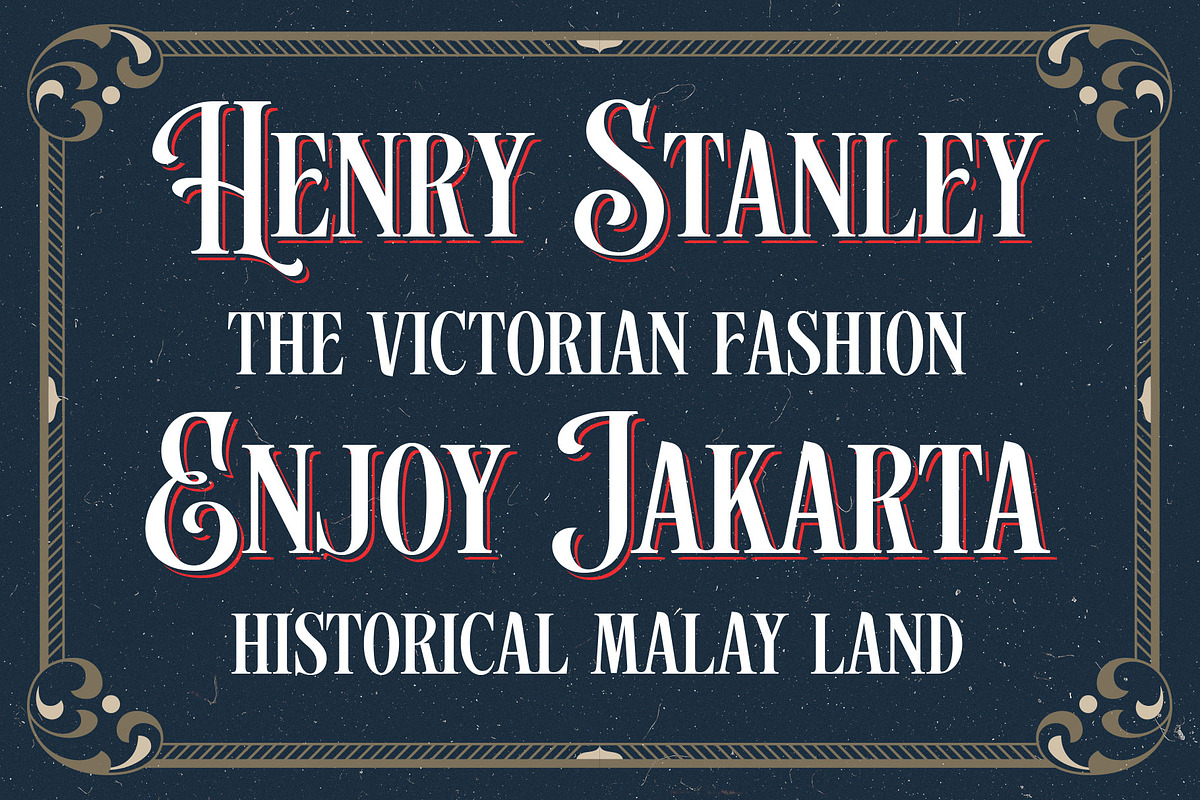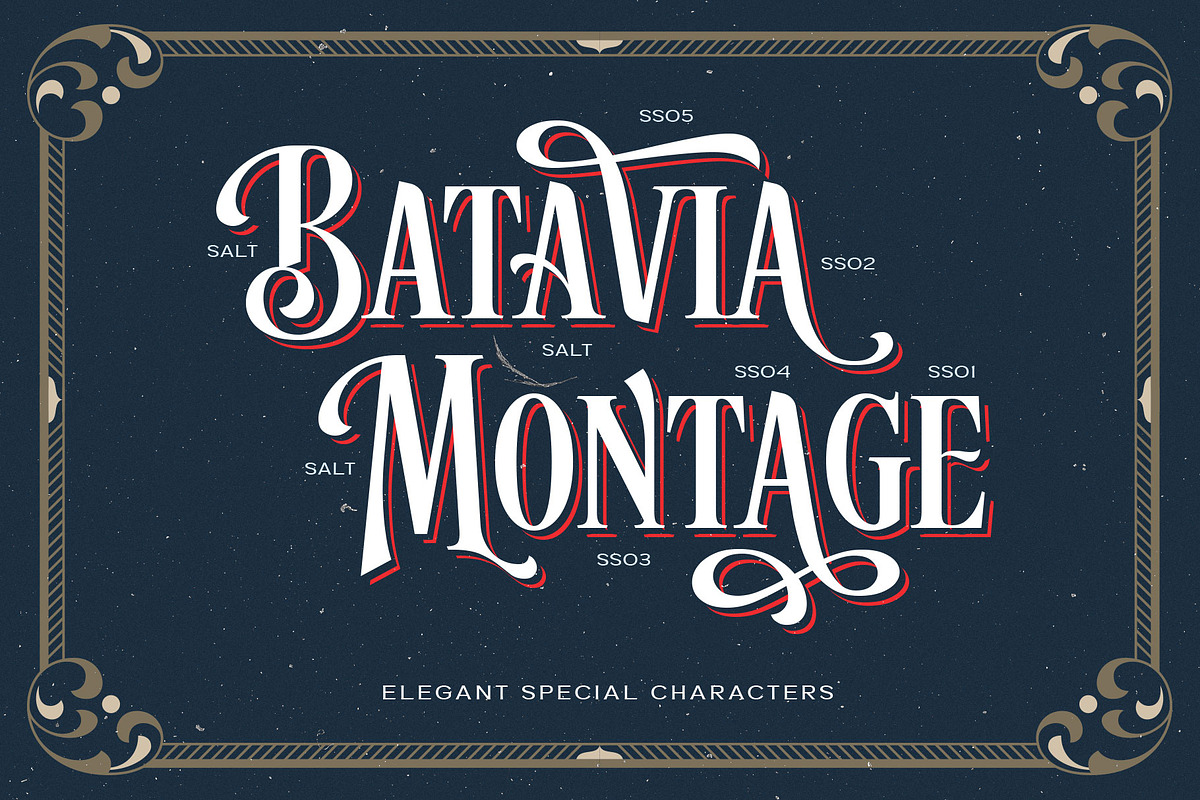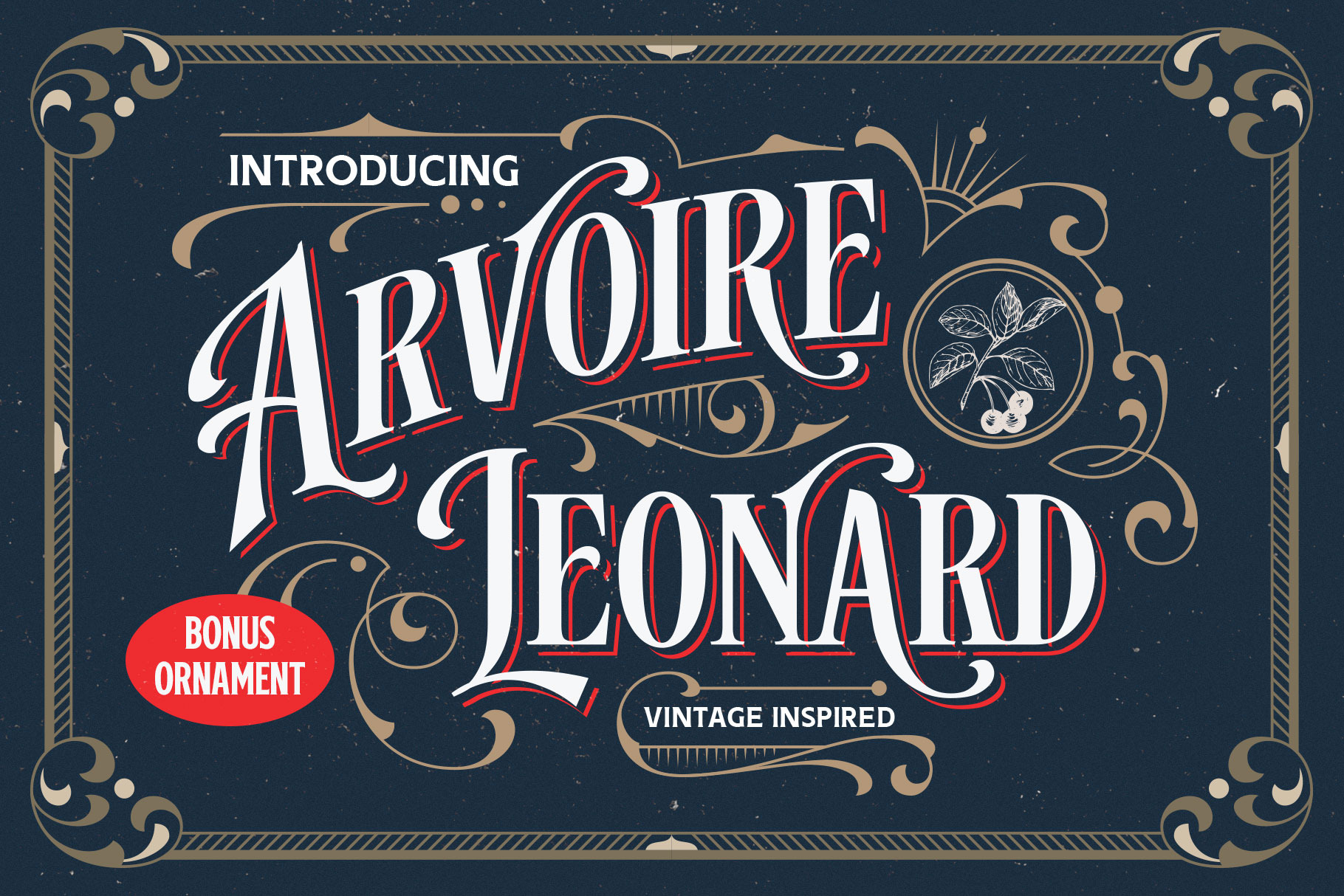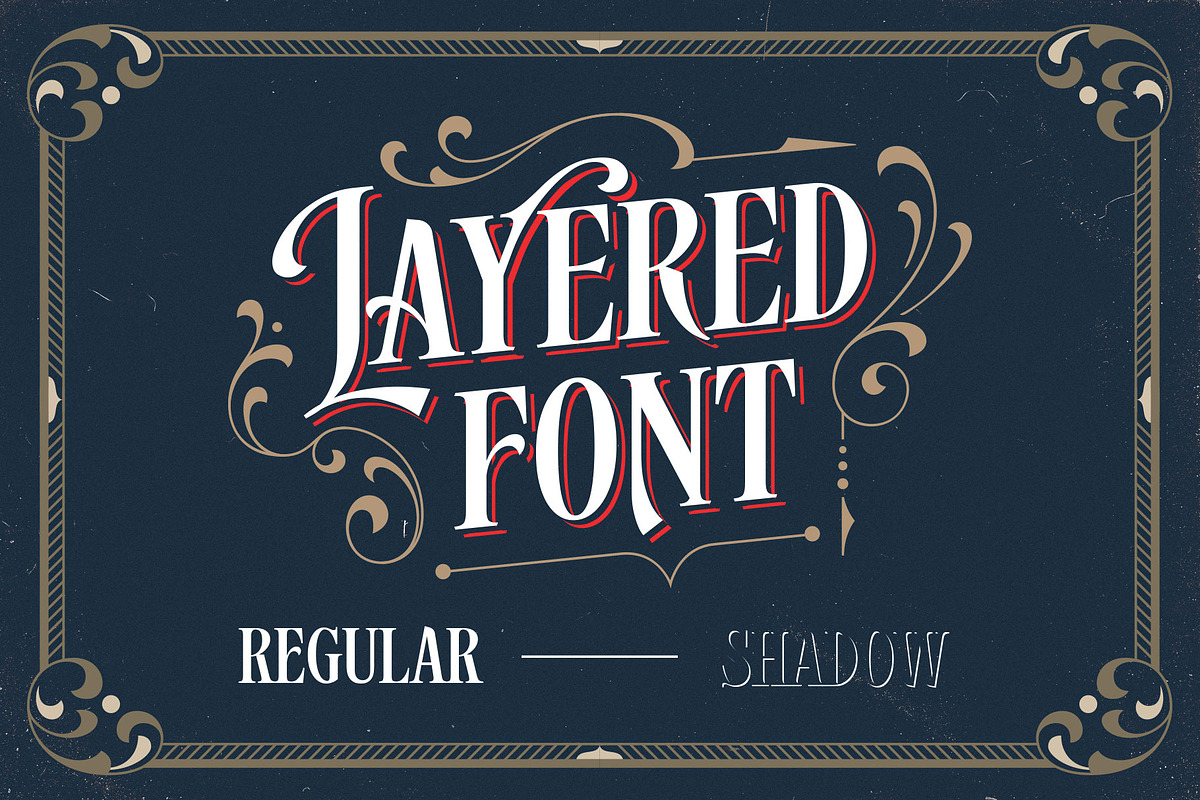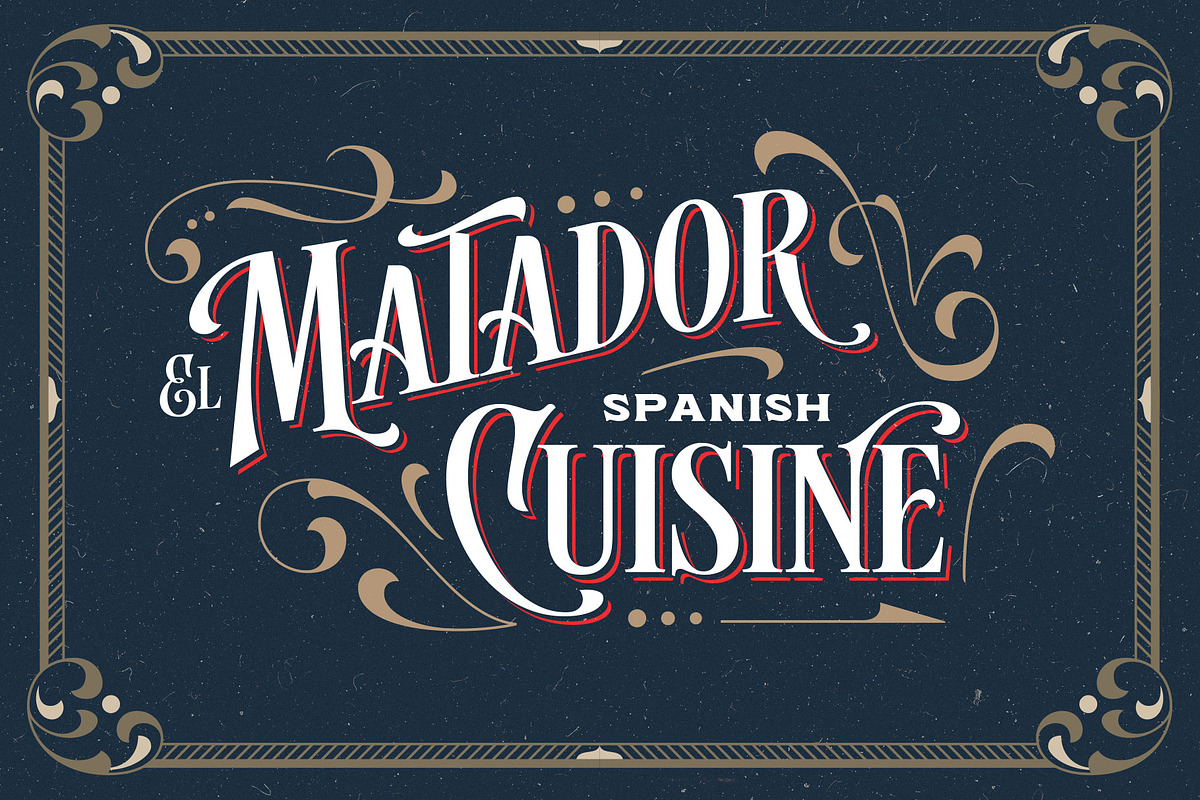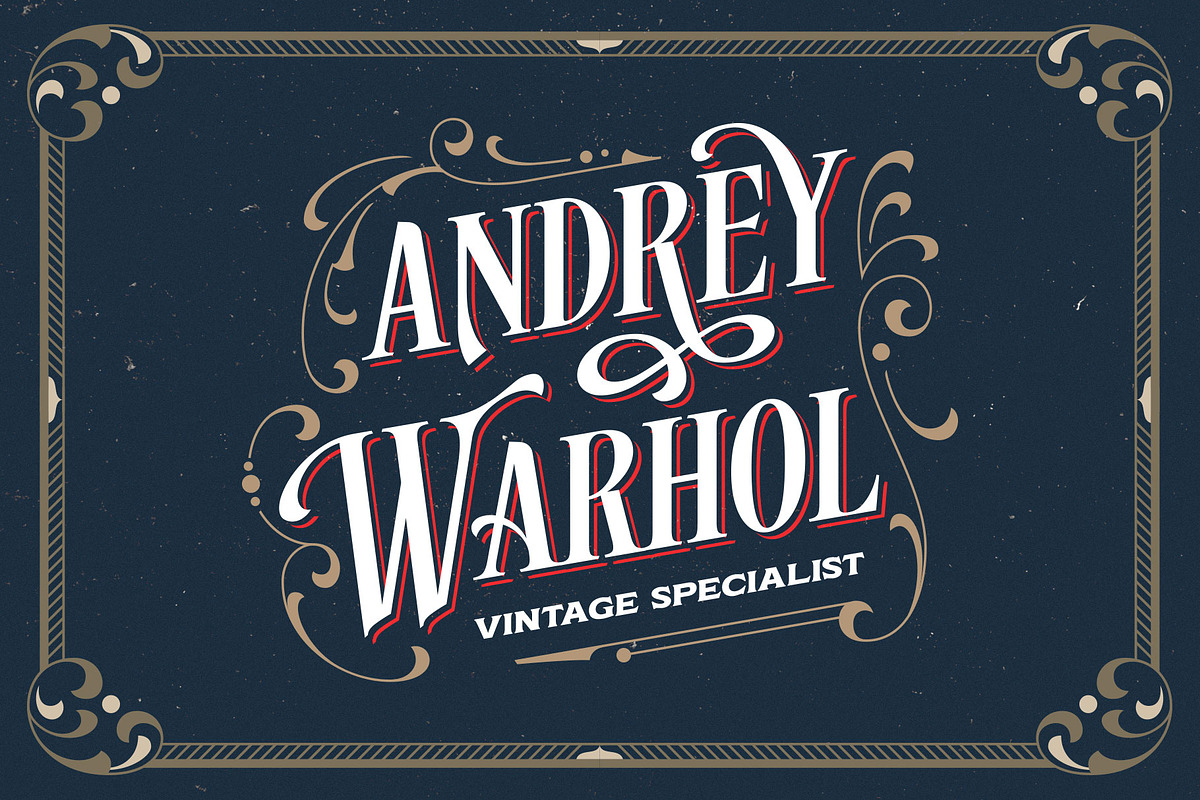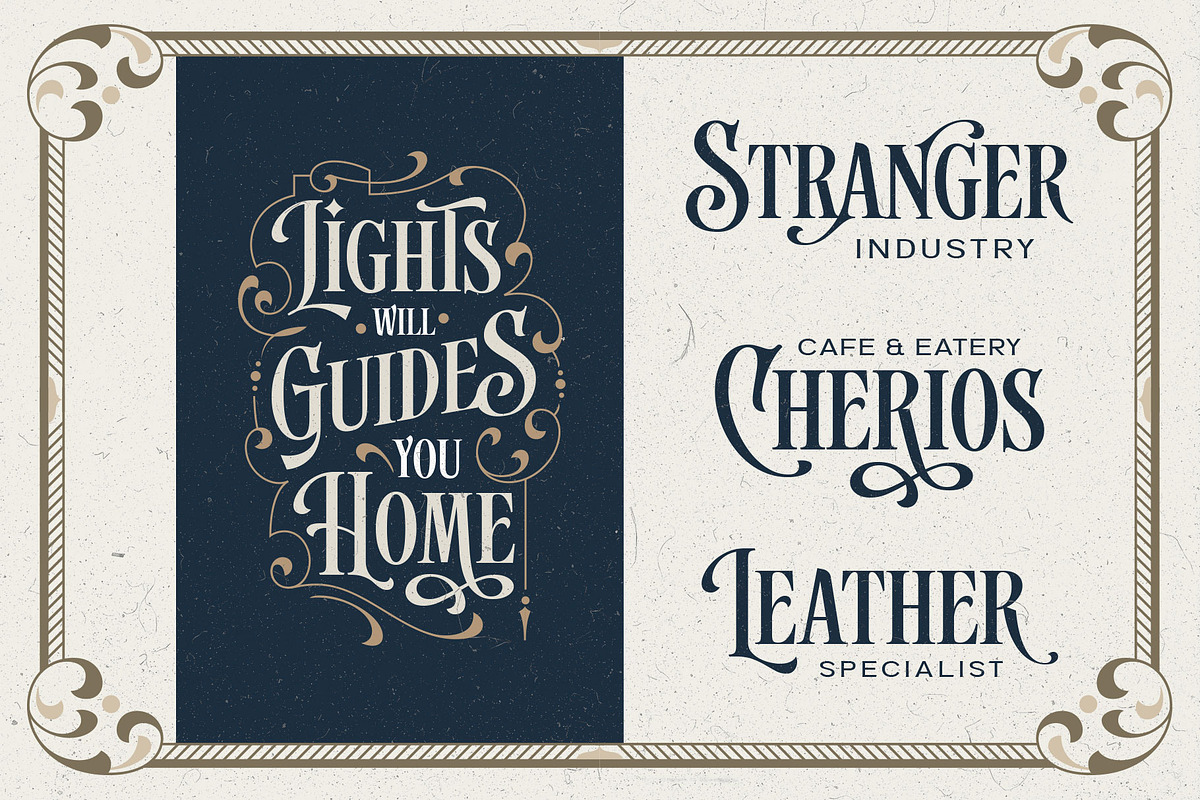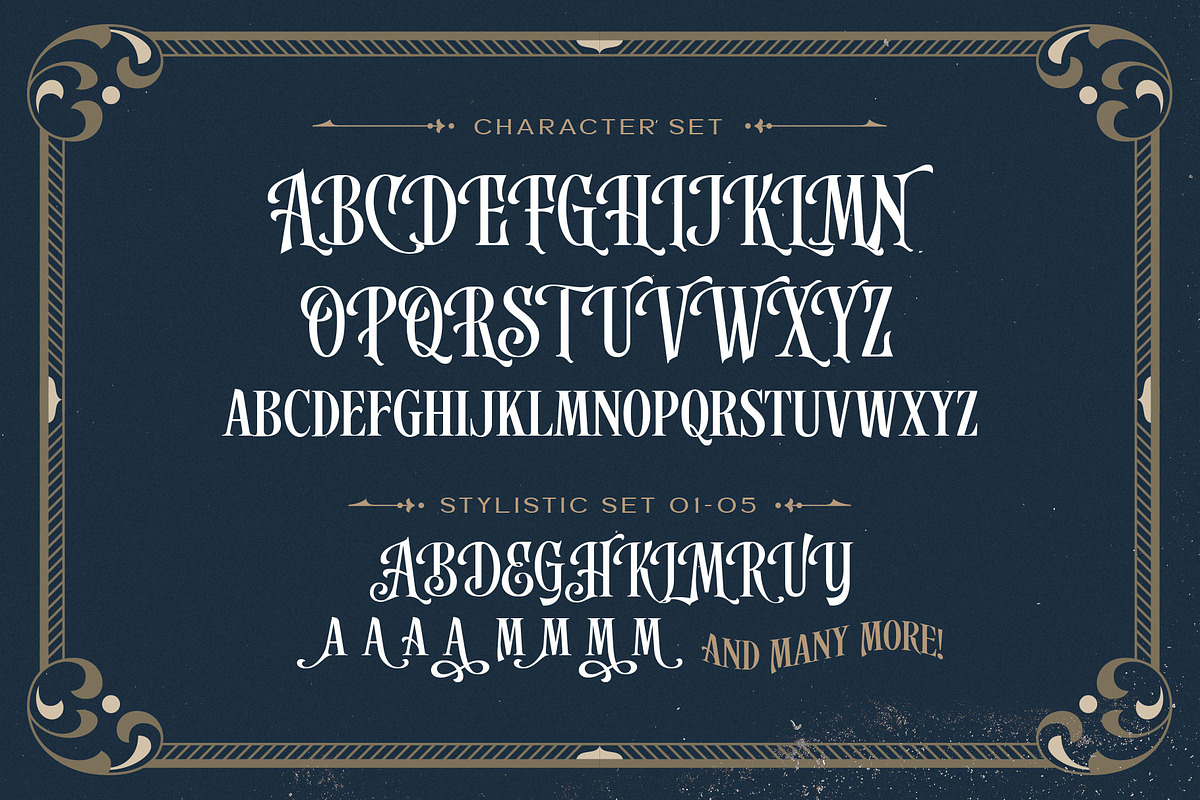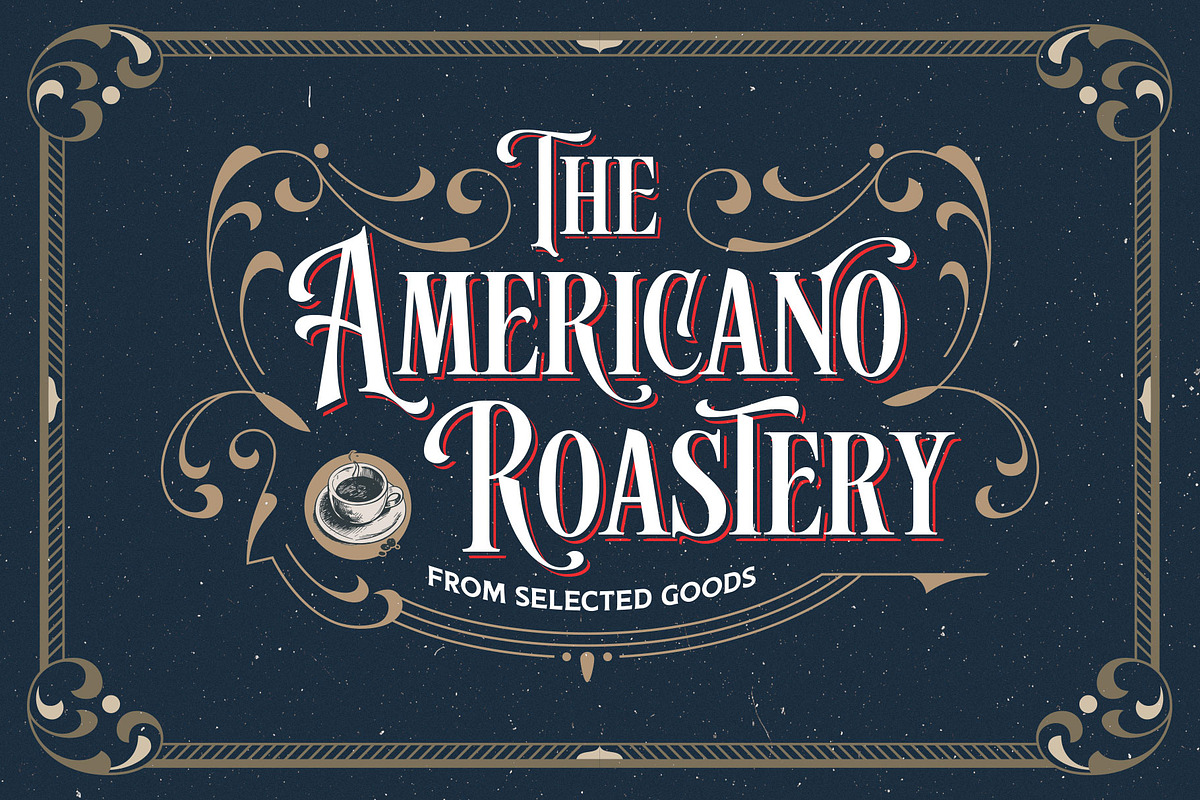
Arvoire Leonard - Layered Font
The brand new exploration inspired by the typography from the 19th century, we proudly present "Arvoire Leonard" the modern vintage font that comes in Regular and Shadow.
Collected from many references such as vintage signage, logos, badges, and old-fashioned graphics. Arvoire Leonard is An all-caps font, carefully crafted with an elegant touch but still with a classic feel.
Arvoire Leonard is perfect for many display purposes. You can use this font for poster, label, logo, signboard, t-shirt, book cover, decoration, merchandise, and more! Multilingual support, alternate characters and extra ornaments included!
Font featured :
Smallcaps
Numbers & symbols
Stylistic alternates
Stylistic set 01-05
Accented characters: ÀÁÂÃÄÅÆÇÈÉÊËÌÍÎÏÑÒÓÔÕÖØÙÚÛÜÝÞŒŠŽßàáâãäåæçèéêëìíîïñòóôõöøùúûüýþÿœšž